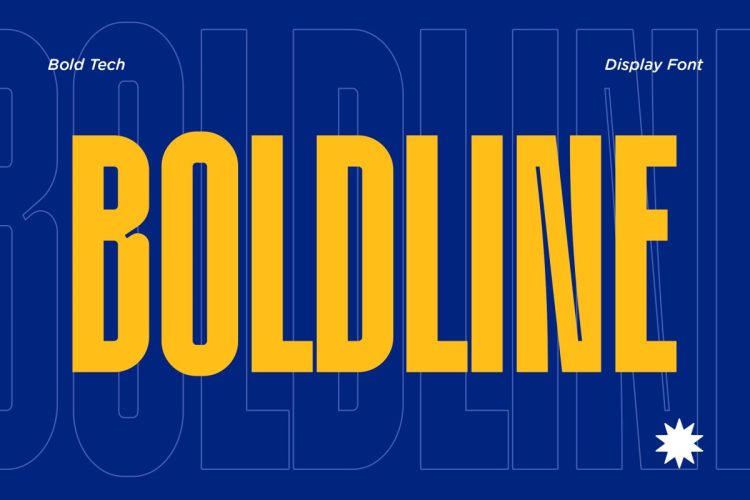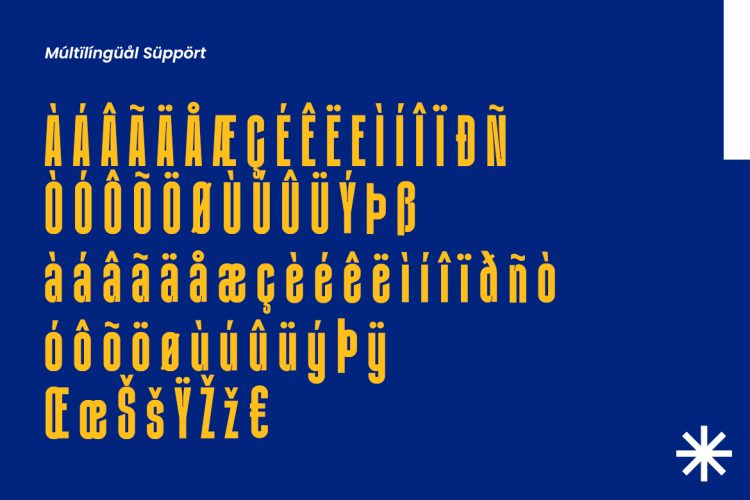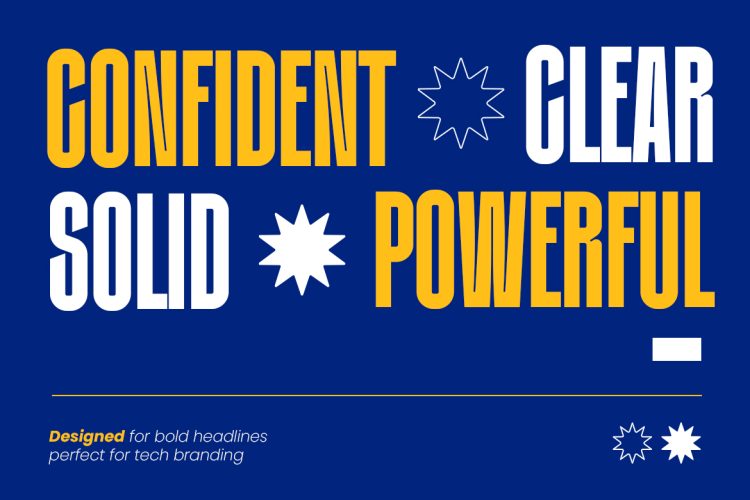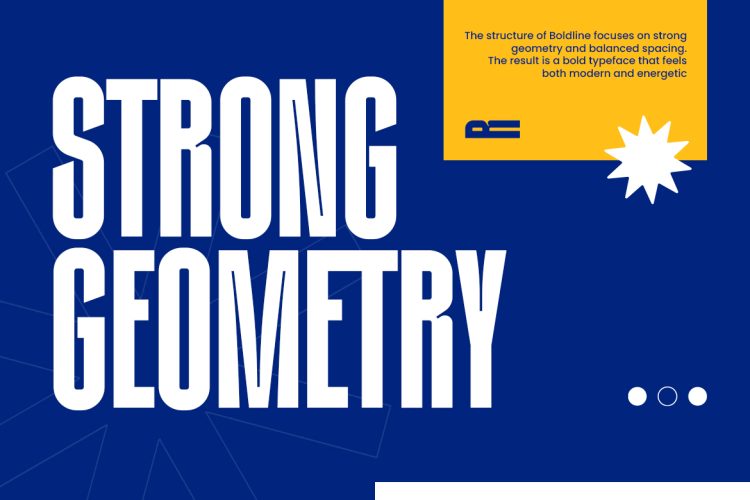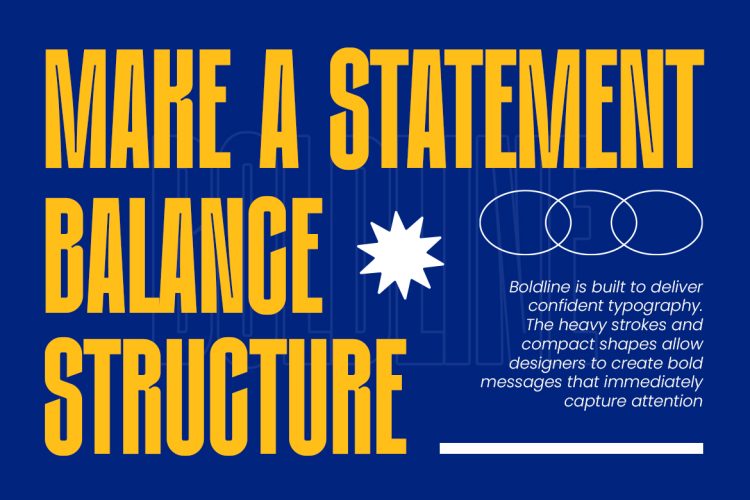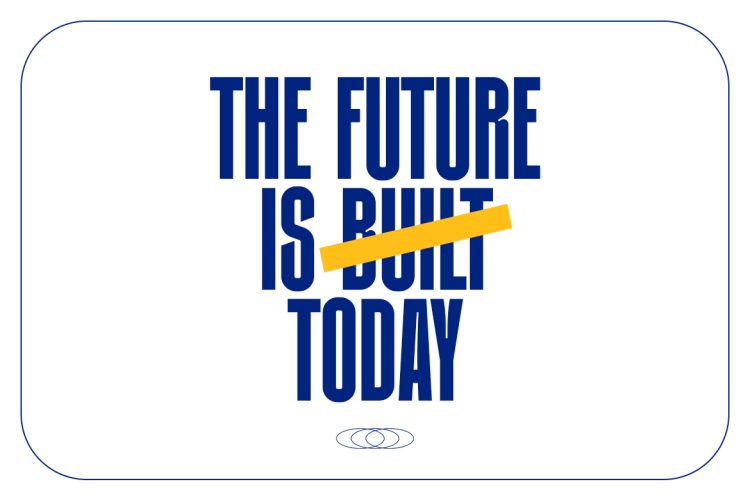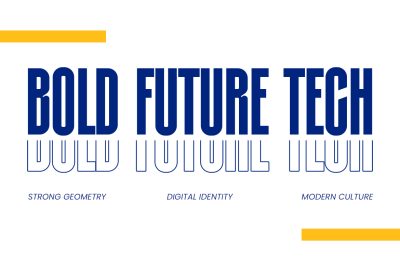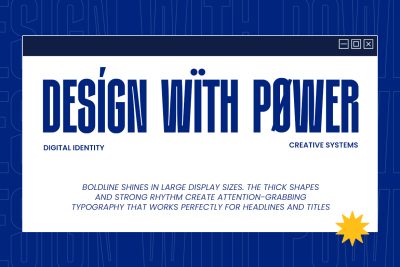
Instagram Font Boldline โ Bold Modern Impact
Instagram Font Boldline is a powerful display typeface created to deliver bold visual impact in modern design. Built with strong geometric letterforms and confident proportions, this font immediately attracts attention and makes every headline stand out. The solid strokes and compact structure create a futuristic and energetic personality that feels both modern and professional. As a result, designs appear stronger, clearer, and more visually dynamic. Moreover, the clean lines and balanced spacing make the typography easy to read even in large compositions. Because of this, Instagram Font Boldline becomes a reliable choice for designers who want bold headlines without sacrificing clarity. In addition, the font transforms simple text into striking graphic elements that feel structured, modern, and memorable. With support for 67 languages, this font allows creators from different regions to build global designs with consistent style and readability.
Boldline is a bold geometric display font designed for strong and confident typography. The letterforms feature solid shapes, sharp structure, and balanced spacing that create a clean yet powerful look. At the same time, the geometric construction keeps the style modern and visually organized. Because of this combination, the font works beautifully in many contemporary design projects.
Furthermore, Boldline performs exceptionally well in large titles and promotional layouts. It is perfect for technology branding, modern advertising, creative posters, and digital marketing graphics. In addition, it works extremely well for Instagram visuals, YouTube thumbnails, website banners, and bold product promotions. The strong letterforms help designs stand out quickly, while the structured geometry keeps everything balanced and professional.
Instagram Font Boldline is ideal for graphic designers, brand designers, creative agencies, marketers, and content creators who want typography with bold personality. It works perfectly for tech branding, startup logos, posters, social media graphics, advertising campaigns, website headers, and modern promotional designs.